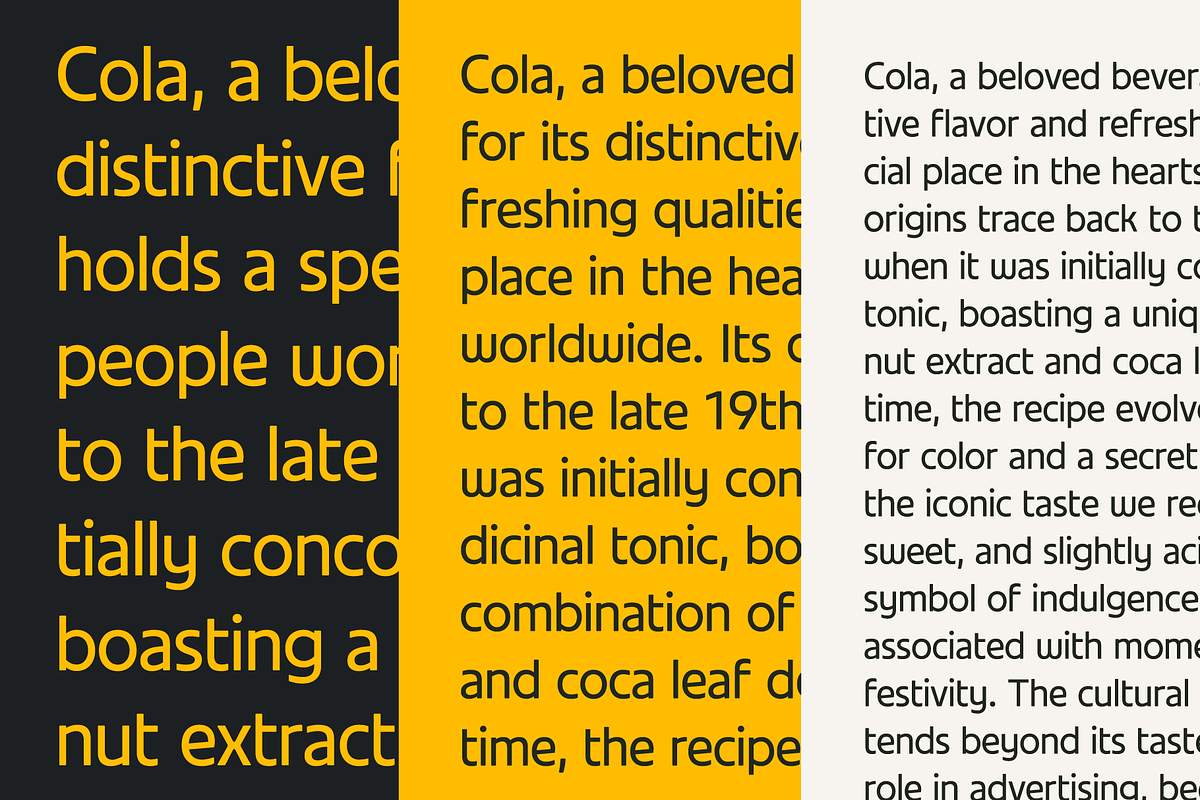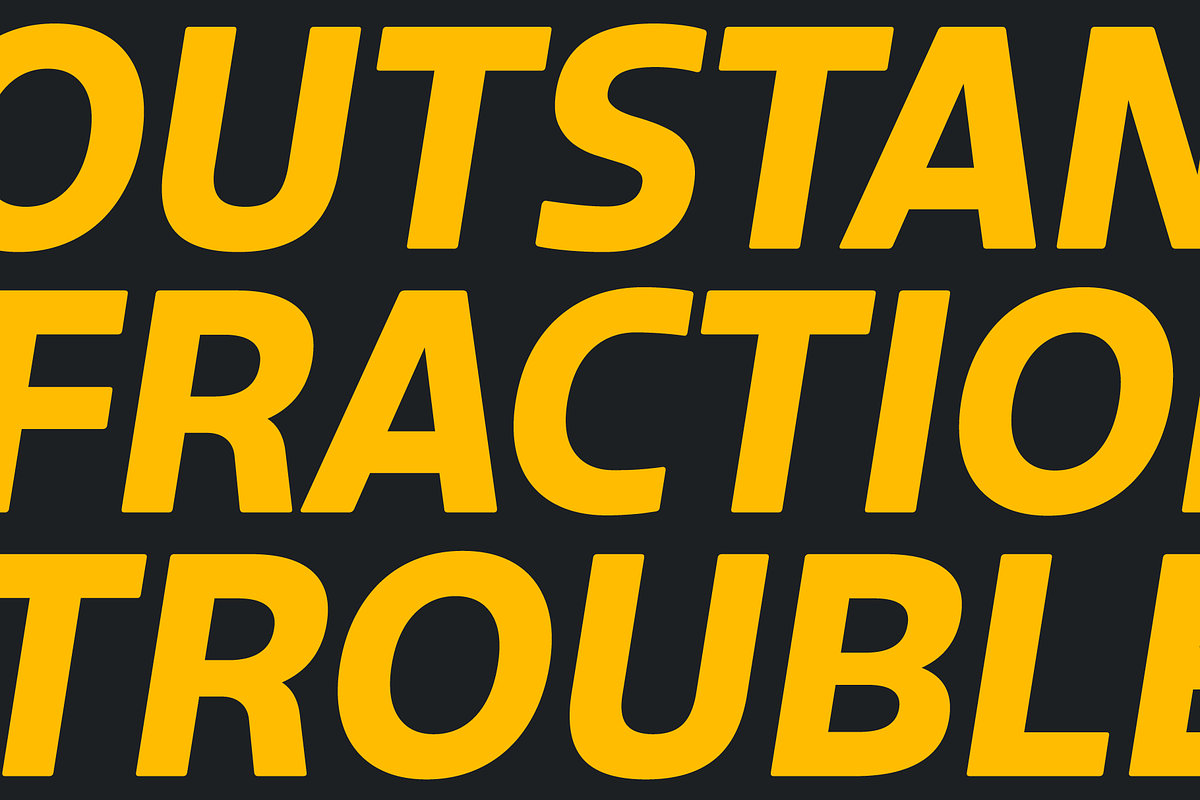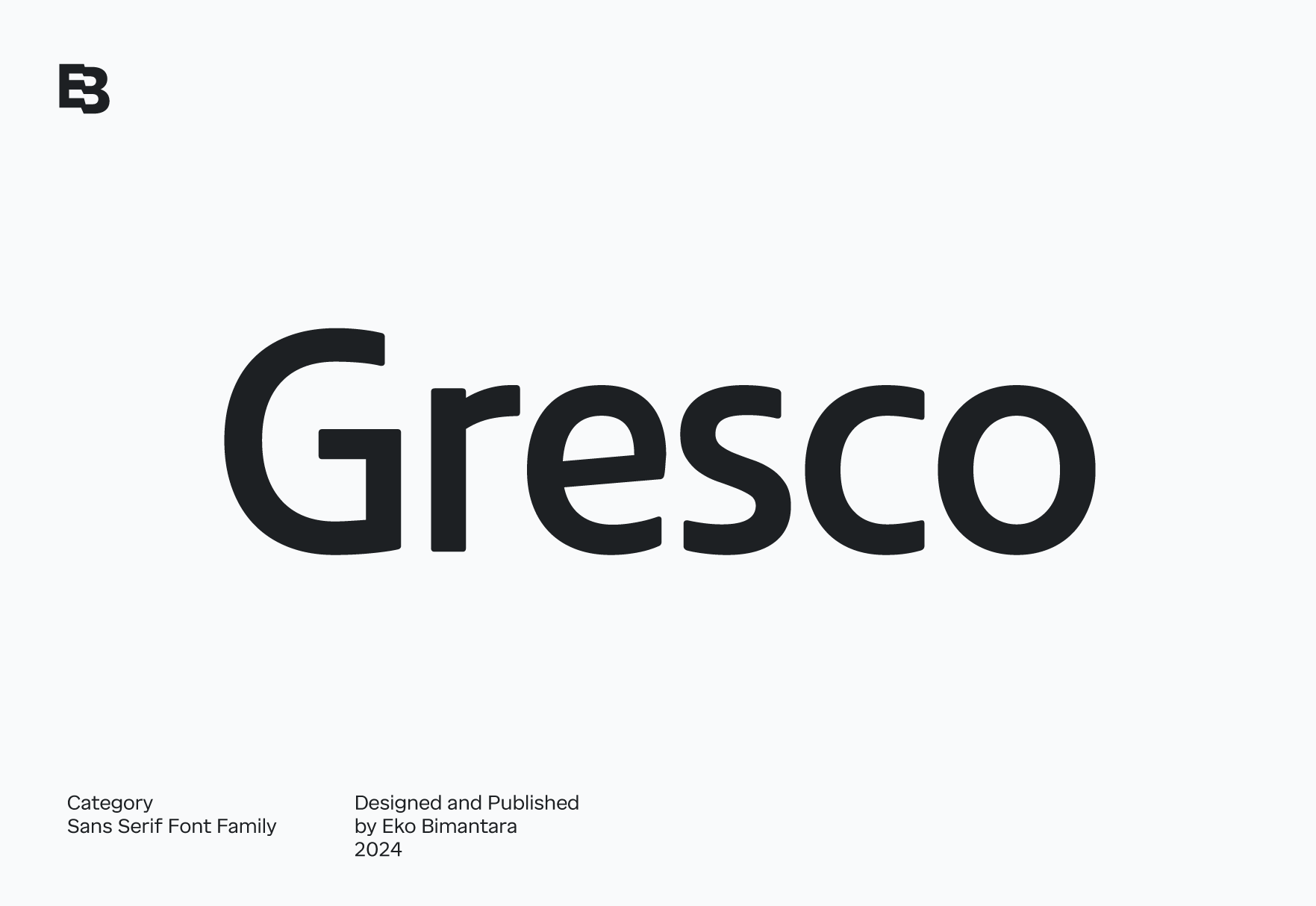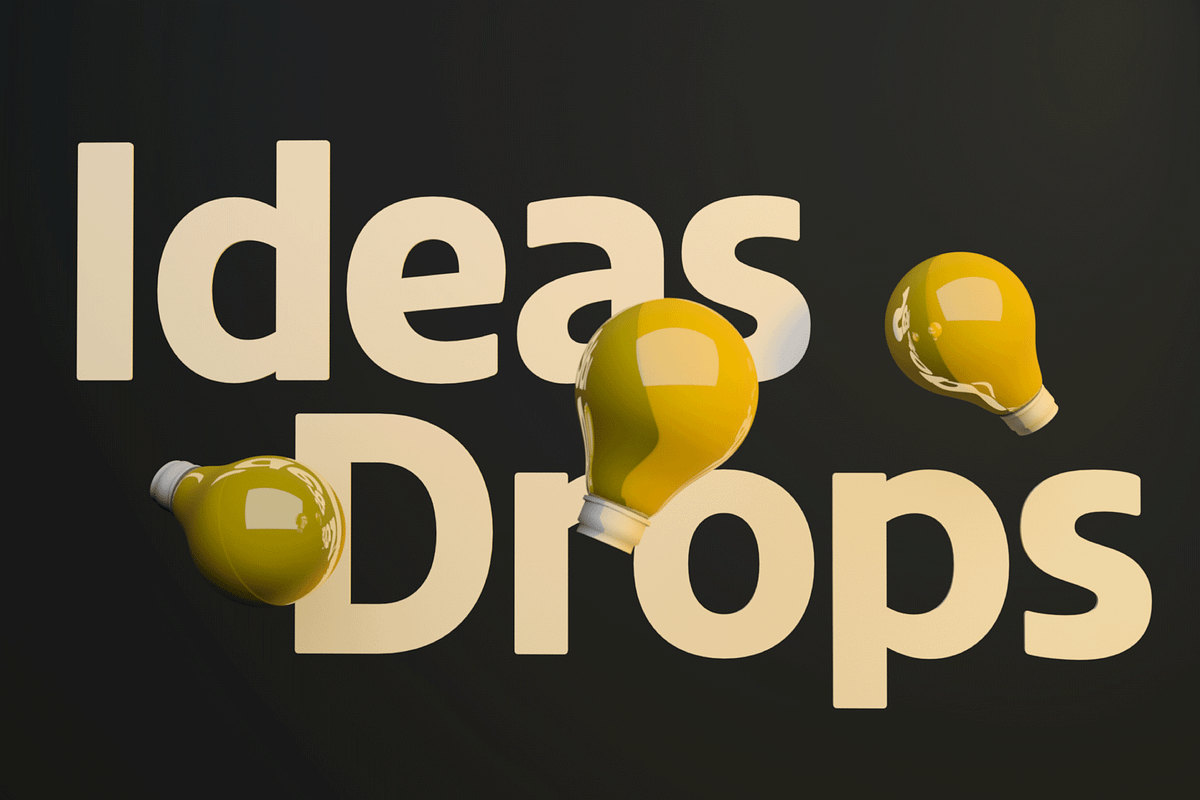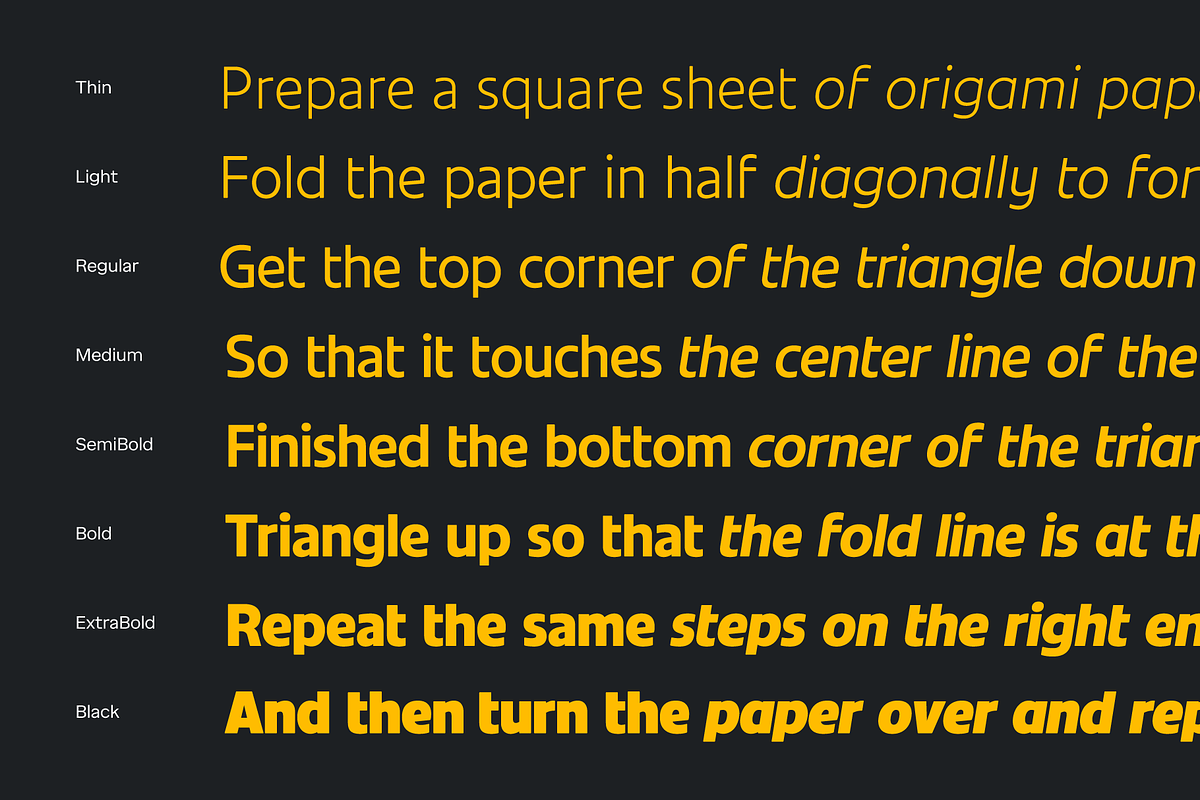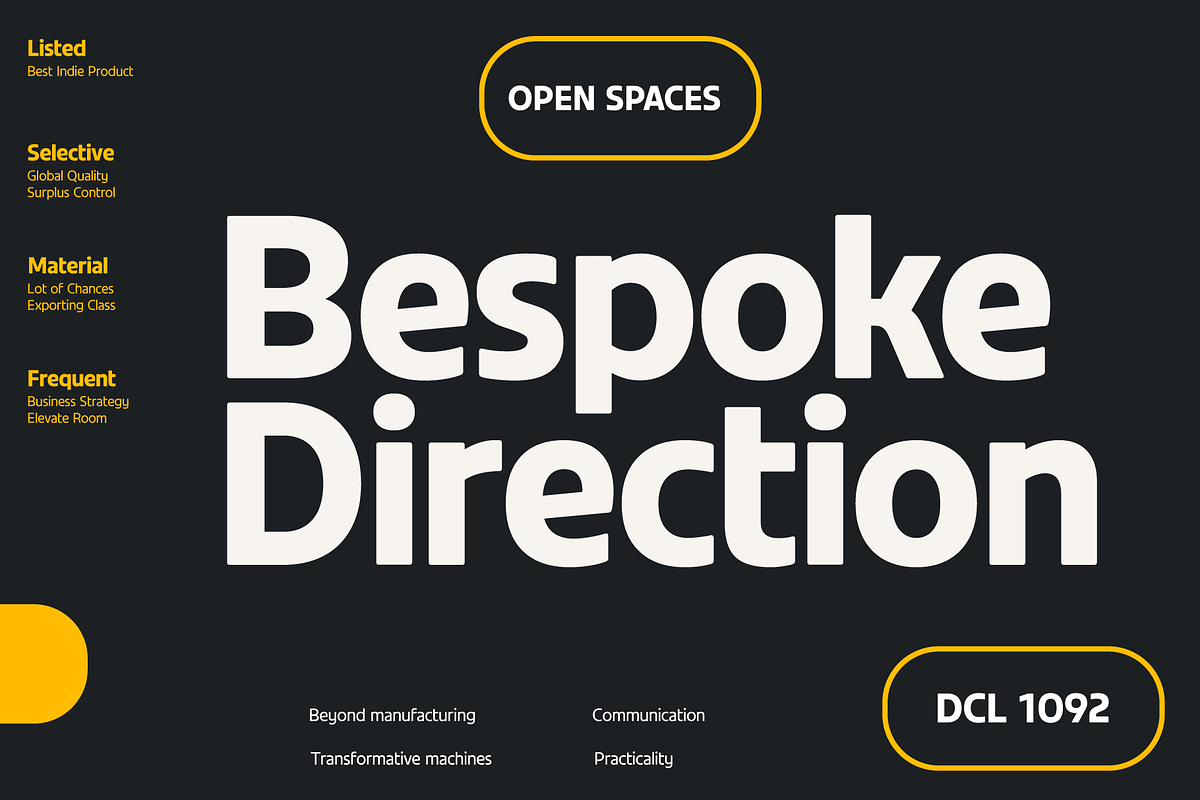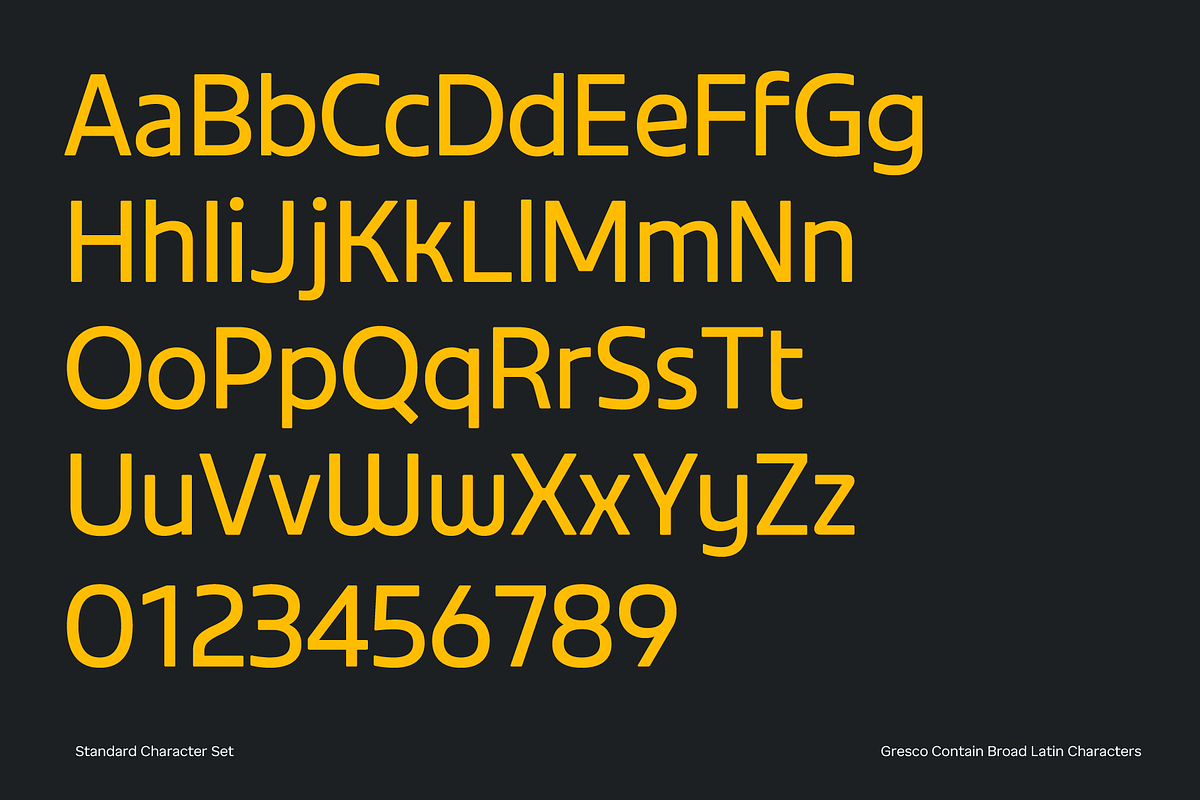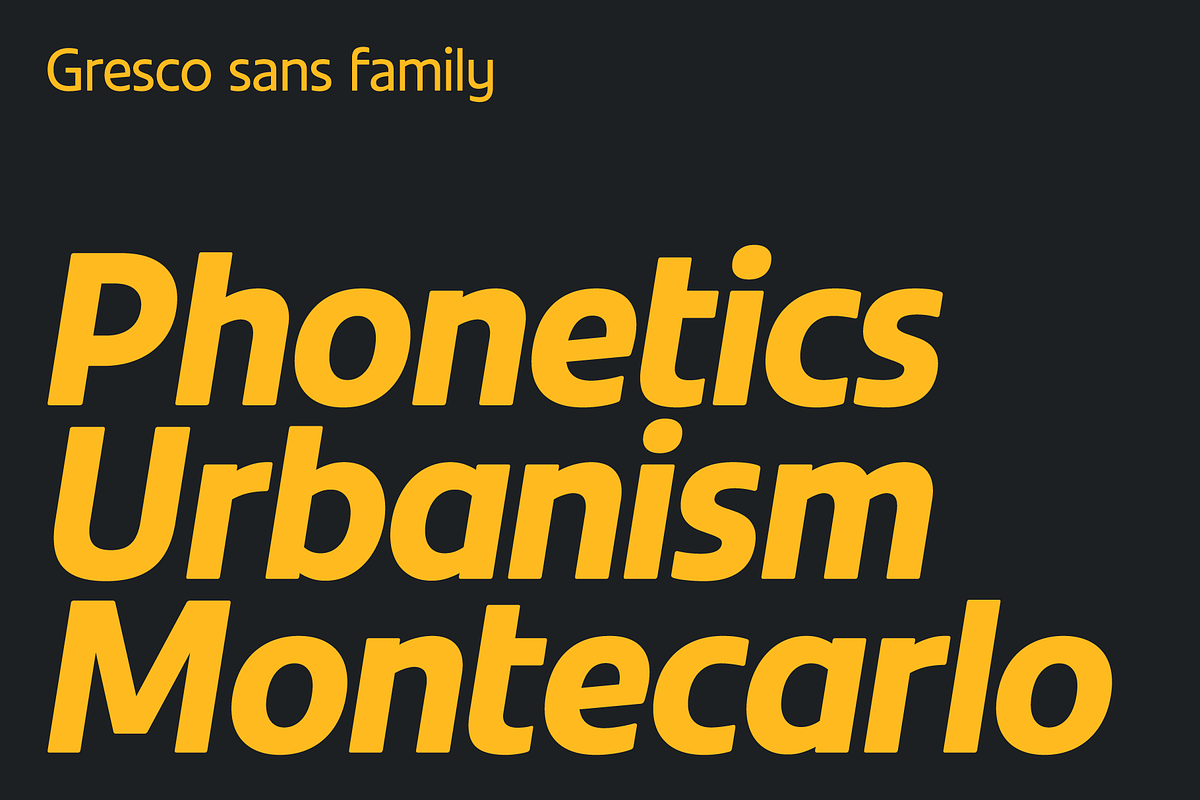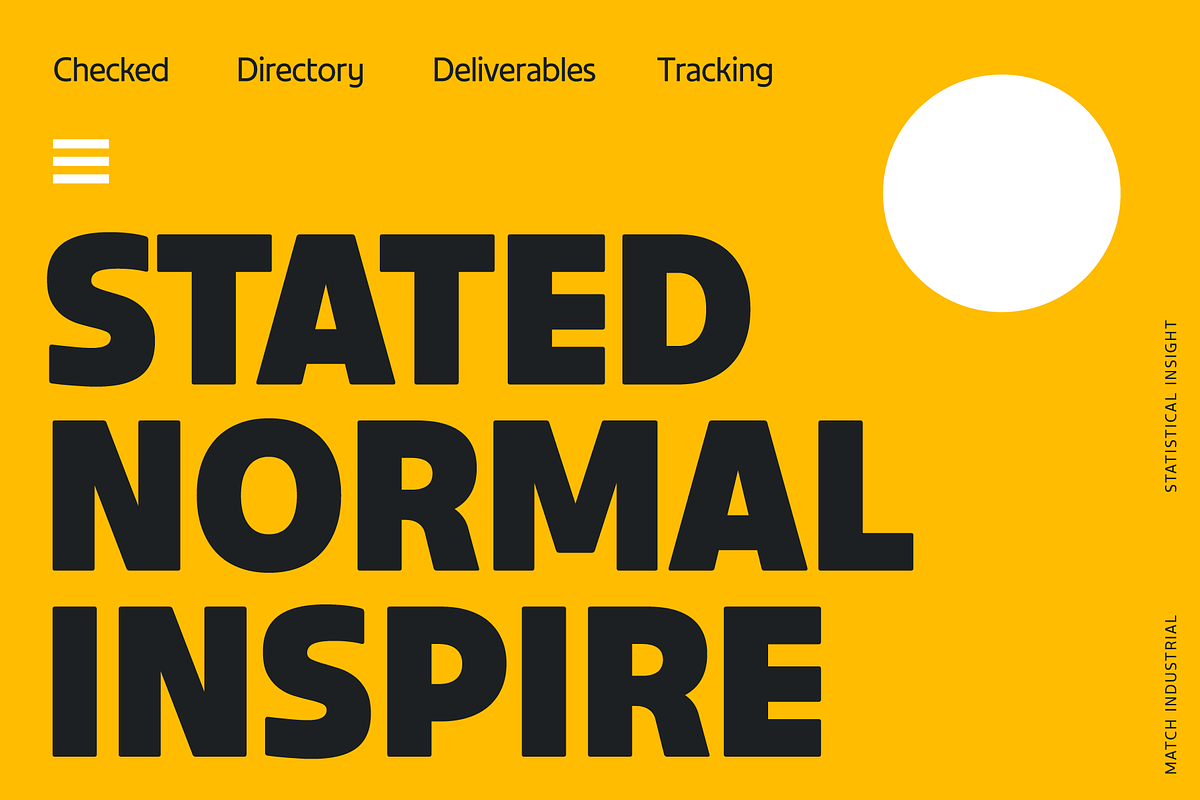
Gresco; 16 Fonts of Sans Serif
Gresco is a sans display font family that combines bold, soft, classic, and modern elements. This unique typeface features regular sans serif letterforms with a 70’s geometric touch, offering a vintage interpretation of the future. With tight spacing, soft edges, and a quirky personality, Gresco adds a distinctive flair to any design. The font family includes eight styles, ranging from thin to black, each with matching obliques and broad Latin language coverage, providing versatility and extensive application options.
Ideal for display, large-size settings, and headers, Gresco fits seamlessly into various layout designs, logos, websites, brand identities, and product packaging. Its bold and soft character, along with its classic yet modern appeal, makes it suitable for both text and web font usage, ensuring a broad range of graphic design and creative purposes. Whether used for an eye-catching website or a standout product label, Gresco brings a unique and stylish touch to any project.